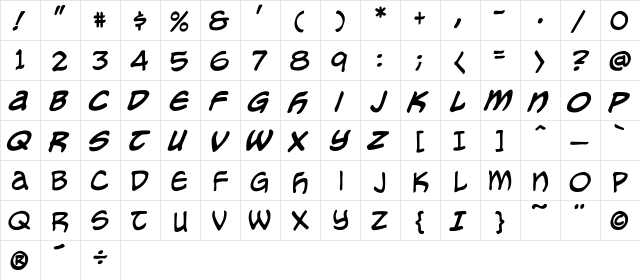
CCMeanwhile Regular
Design Context for CCMeanwhile Typeface
CCMeanwhile is a composed and adaptable typeface that performs quietly and consistently across a wide range of design contexts.